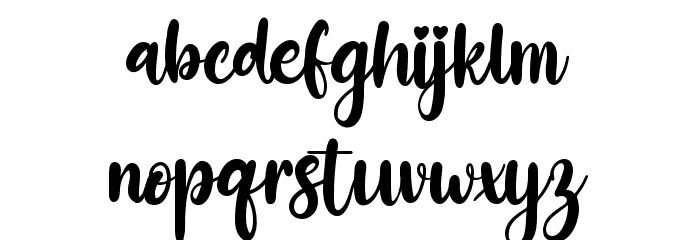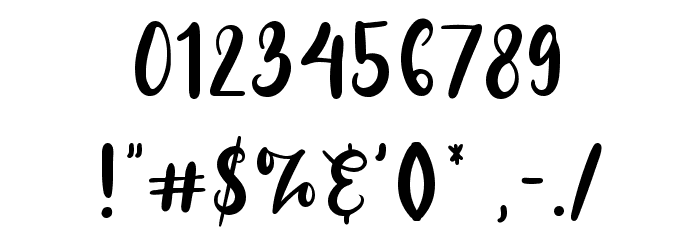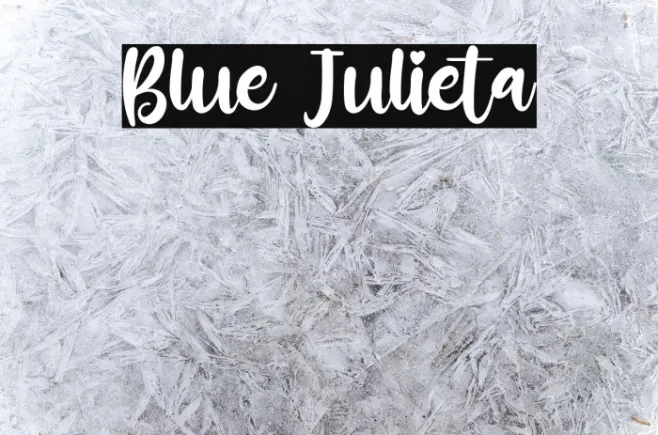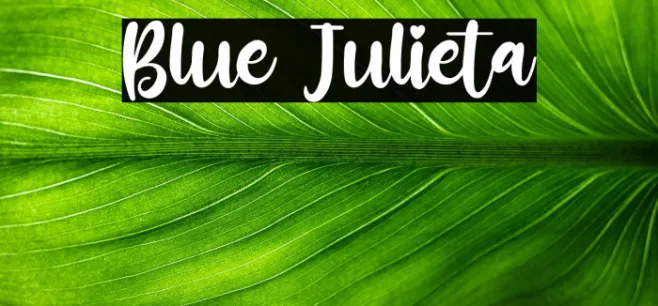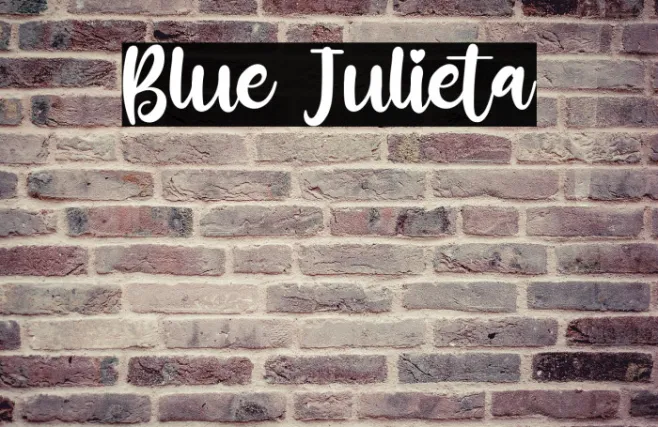
Blue Julieta Font
This font features a playful and elegant script style with a handwritten touch. The uppercase letters are bold and flowing, with a distinct flair that adds personality to each character. The lowercase letters maintain a consistent style, offering a smooth and connected appearance that enhances readability. Numbers are clear and well-defined, matching the overall aesthetic of the font. Special characters are creatively designed, adding a unique charm to the font's versatility. The font's overall design is both modern and decorative, making it suitable for a variety of creative projects.
A playful and elegant script font with a handwritten touch.
- Proposed Projects: Ideal for invitations, greeting cards, branding, and social media graphics.
- Use Case: Logos, Headlines, Invitations